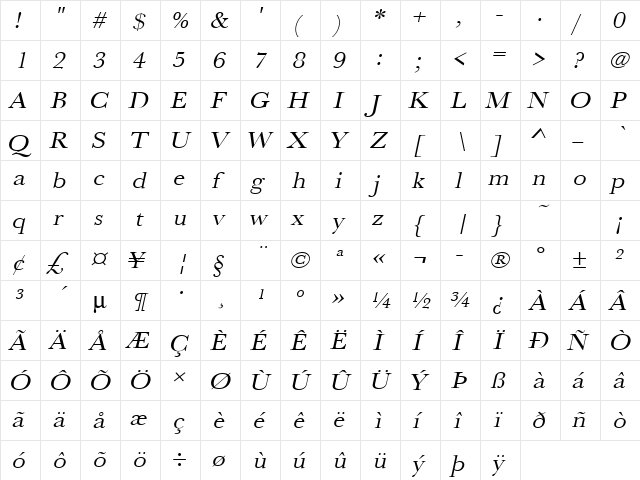
URWBaskerTExtWid Oblique Font Preview
URWBaskerTExtWid Oblique
URWBaskerTExtWid Oblique Font Details
Design Context for URWBaskerTExtWid Typeface
URWBaskerTExtWid offers clean, dependable letterforms without strong stylistic allegiance, making it a practical choice for designers who need flexibility. The dynamic lean of this cut emphasises speed and emphasis in any layout.
Pro Tip: Try URWBaskerTExtWid for annotation and caption copy alongside an upright companion — the contrast in angle creates a dynamic but ordered typographic system.